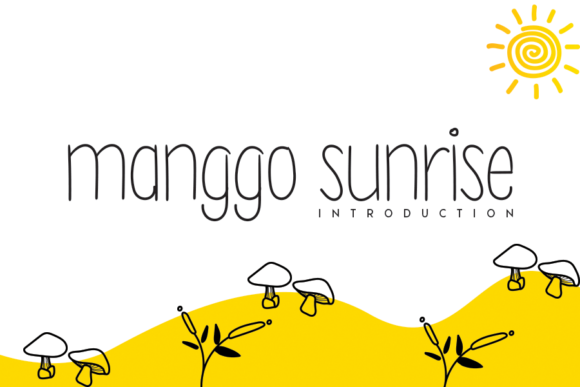
Journey into the world of Manggo Sunrise, where letters dance with whimsy and charm. Dive into a realm where creativity knows no bounds, and individuality shines through every word. This enchanting handwritten font, crafted with meticulous care by andikastudio, is your perfect companion for any project that demands an infusion of playfulness and personality.
Step into the enchanted realm of Manggo Sunrise, where letters come alive with a magical allure. Its slim and delicate strokes, like the soft whispers of a summer breeze, lend an air of elegance and sophistication to any design. The characters, with their unique and playful charm, dance across the page, evoking a sense of joy and wonder that will captivate your audience.
With Manggo Sunrise, ordinary words are transformed into extraordinary expressions. Its versatility knows no limits, whether you're crafting heartwarming Christmas greetings, whimsical invitations, eye-catching social media posts, or adding a touch of whimsy to your digital creations. This font is the perfect choice to make your designs stand out and leave a lasting impression.
Dive into a world where imagination and creativity collide, where every letter tells a story and every word exudes personality. Unleash your inner artist with Manggo Sunrise, and watch as your designs come to life with a charm that will melt hearts and ignite imaginations. Embrace the magic and let your creativity soar with this enchanting handwritten font.